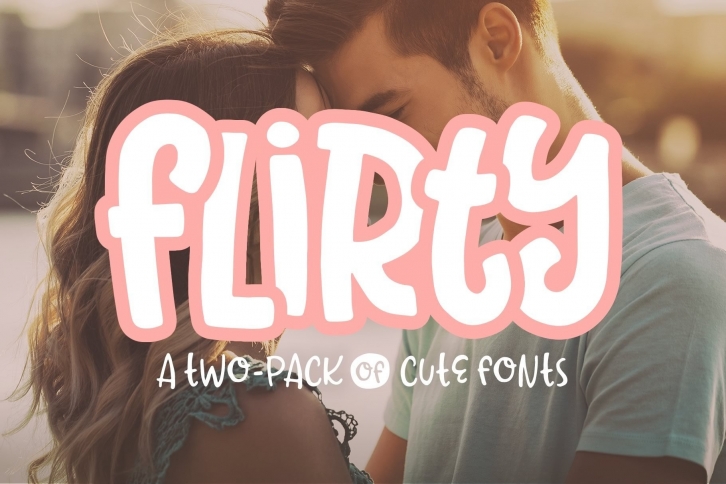
Flirty is a sweet handwritten font that comes in two styles, one with thick lines and an adorable feel and one with a unique, all-caps hand-drawn feel. Use them separately or together, and you’ll love the results!